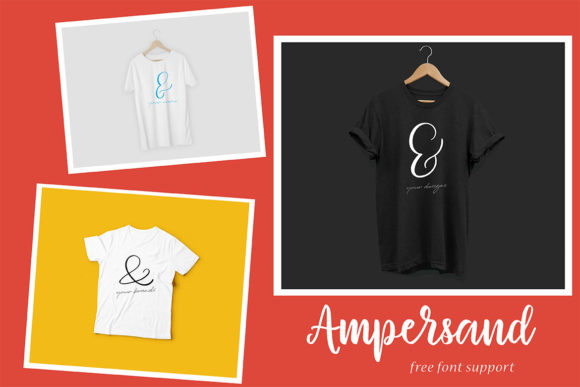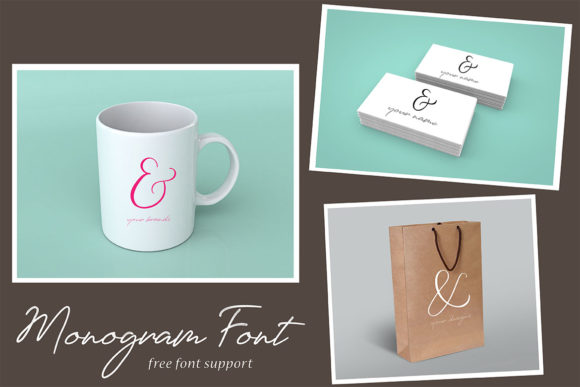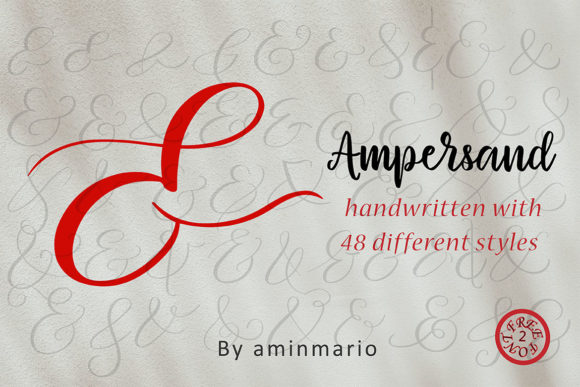
Ampersand: Elevate Your Designs with 48 Unique Font Styles
Are you a designer or crafter looking to add a personal touch to your projects? Look no further than Ampersand, a natural handwriting font with 48 different styles. This versatile font is perfect for creating stunning monograms, and we’ve got the scoop on what makes it so special.
What is Ampersand?
Ampersand is a one-of-a-kind font that offers 48 distinct styles to help you create beautiful, one-of-a-kind monograms. Unlike traditional fonts used for writing words or sentences, Ampersand is specifically designed to add a touch of elegance and sophistication to your designs.
Bonus Fonts: PLANETS SIGNATURE and WEST LONDON
The two bonus fonts included with Ampersand are the perfect complement to the 48 font styles. PLANETS SIGNATURE and WEST LONDON offer a range of possibilities for adding a personal touch to your designs. Use them to create custom text, headers, or even combine them with the Ampersand font styles for a truly unique look.
Ampersand is a dream come true for designers and crafters who want to add a personal touch to their projects. Whether you’re creating custom stationery, logos, or gifts, this font is sure to impress. The 48 different styles offer endless possibilities for experimentation and creativity, making it easy to find the perfect look for your project.
Tips for Using Ampersand
Here are a few tips for getting the most out of Ampersand:
• Use Ampersand to create stunning monograms for custom gifts, such as wedding favors or personalized mugs.
• Combine Ampersand with the bonus fonts to create unique text and headers for your designs.
• Experiment with different font styles and sizes to add depth and interest to your projects.
• Don’t be afraid to get creative and try new things – the 48 font styles offer endless possibilities!
Why Choose Ampersand?
So why choose Ampersand over other fonts on the market? Here are just a few reasons:
• Unique and Versatile: With 48 different font styles, Ampersand offers a level of versatility that’s hard to find in other fonts.
• Natural Handwriting: Ampersand has a natural, handwriting feel that’s perfect for adding a personal touch to your designs.